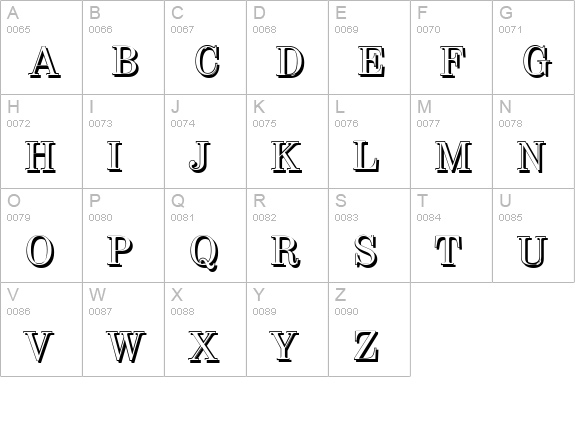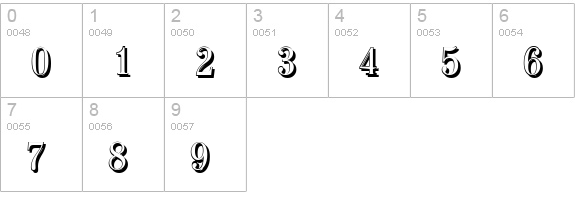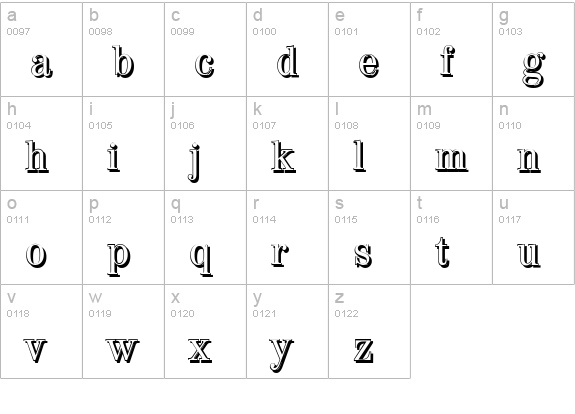
ValenciaShadow-Regular Font Details
ValenciaShadow-Regular is the standard, neutral variant in the ValenciaShadow typeface family \xE2\x80\x94 well suited to general body text, paragraphs, and standard typographic work.
ValenciaShadow-Regular is a charming and elegant font that adds a touch of sophistication to any design project. This unique typeface features a delicate shadow effect that gives it a captivating and stylish appearance. Perfect for headings, logos, invitations, and more, ValenciaShadow-Regular exudes a sense of creativity and class. What makes ValenciaShadow-Regular even more appealing is that it is completely free to download at FontsMarket.com. This means you can easily access this beautiful font without any cost, making it a convenient choice for various creative endeavors. Whether you're a graphic designer, artist, or simply someone looking to enhance their projects with a touch of flair, ValenciaShadow-Regular is a versatile and eye-catching font that will elevate your work to new heights. Download it today and start creating stunning visuals with this exceptional typeface.